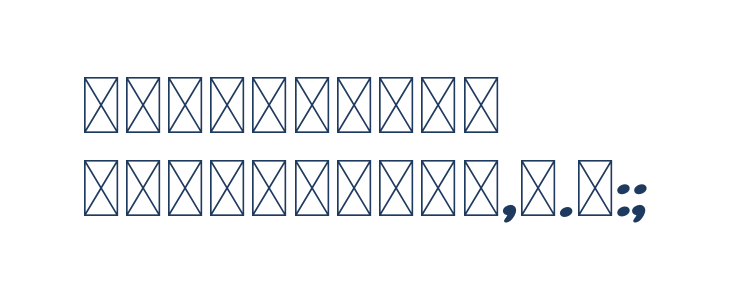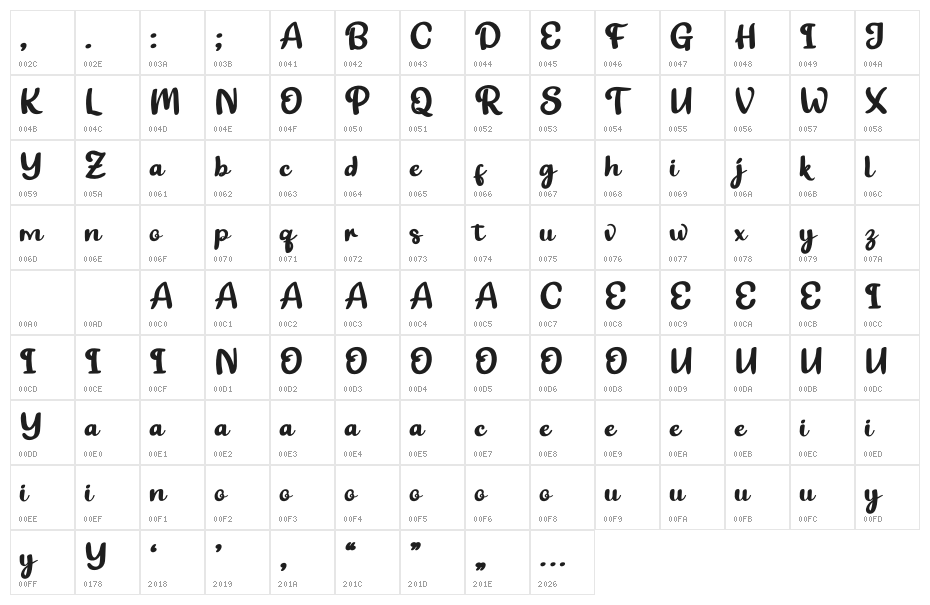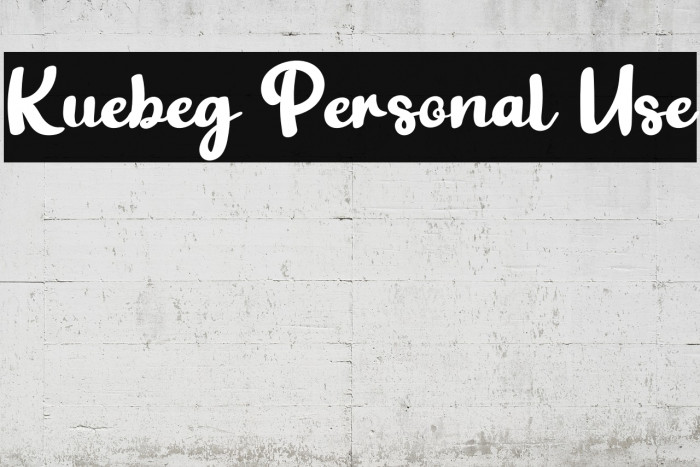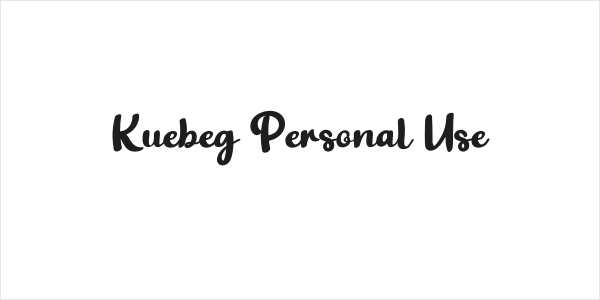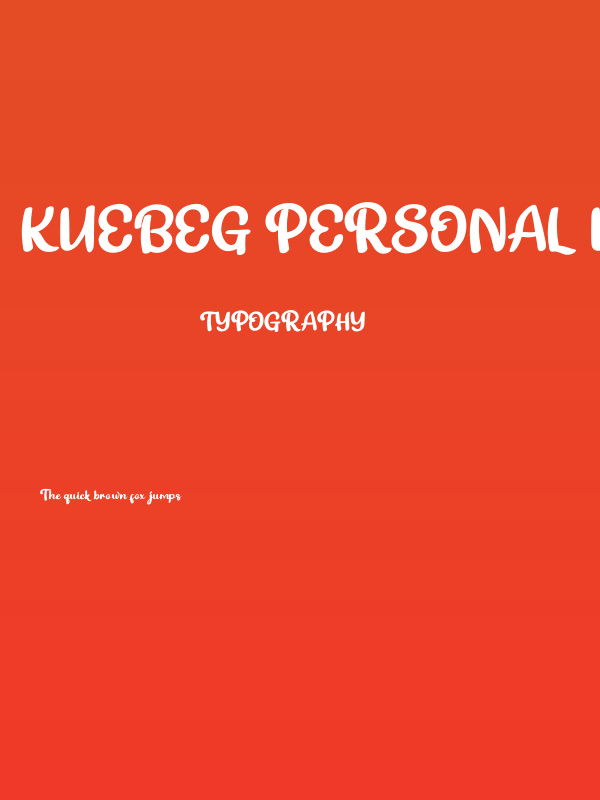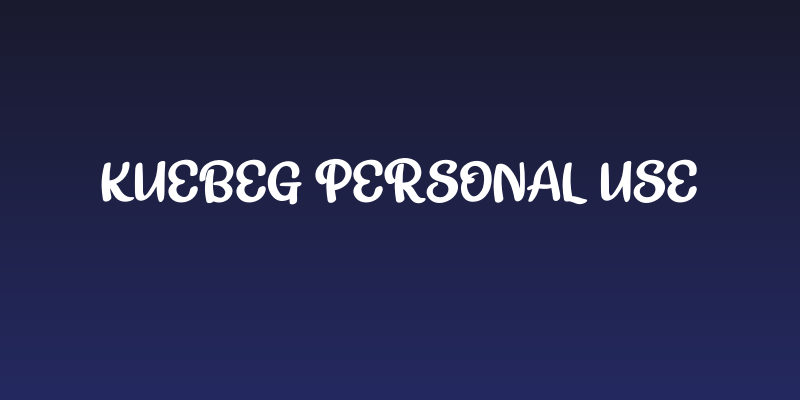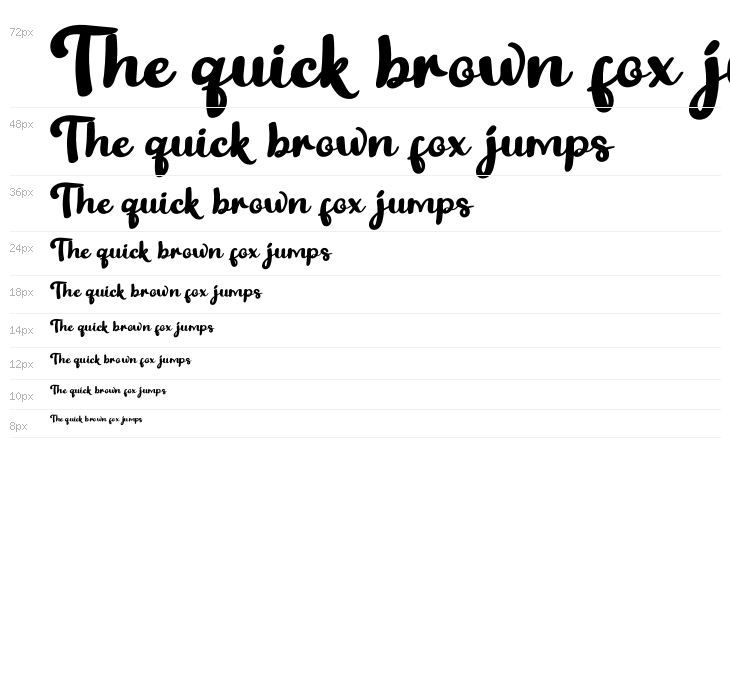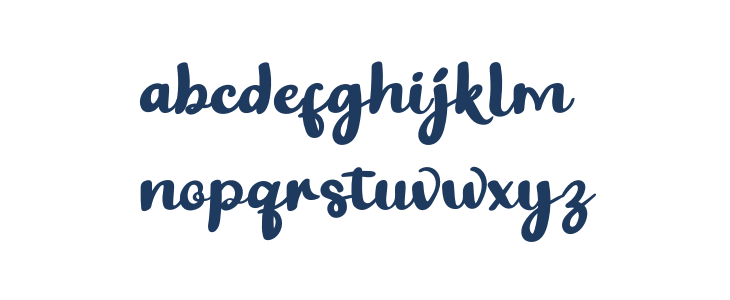
Kuebeg Personal Use Font
Kuebeg Personal Use Description
This font features a playful and bold script style with smooth, flowing curves and a handwritten appearance. The uppercase letters are slightly larger and more pronounced, while the lowercase letters maintain a consistent flow, enhancing readability. The strokes are thick and rounded, giving the font a friendly and approachable feel. The lack of special characters limits its versatility, but its distinct style makes it ideal for creative and informal projects. The font's design is consistent throughout, with a uniform stroke width that adds to its cohesive look.
| Proposed Projects | Ideal for greeting cards, invitations, playful branding, and social media graphics. |